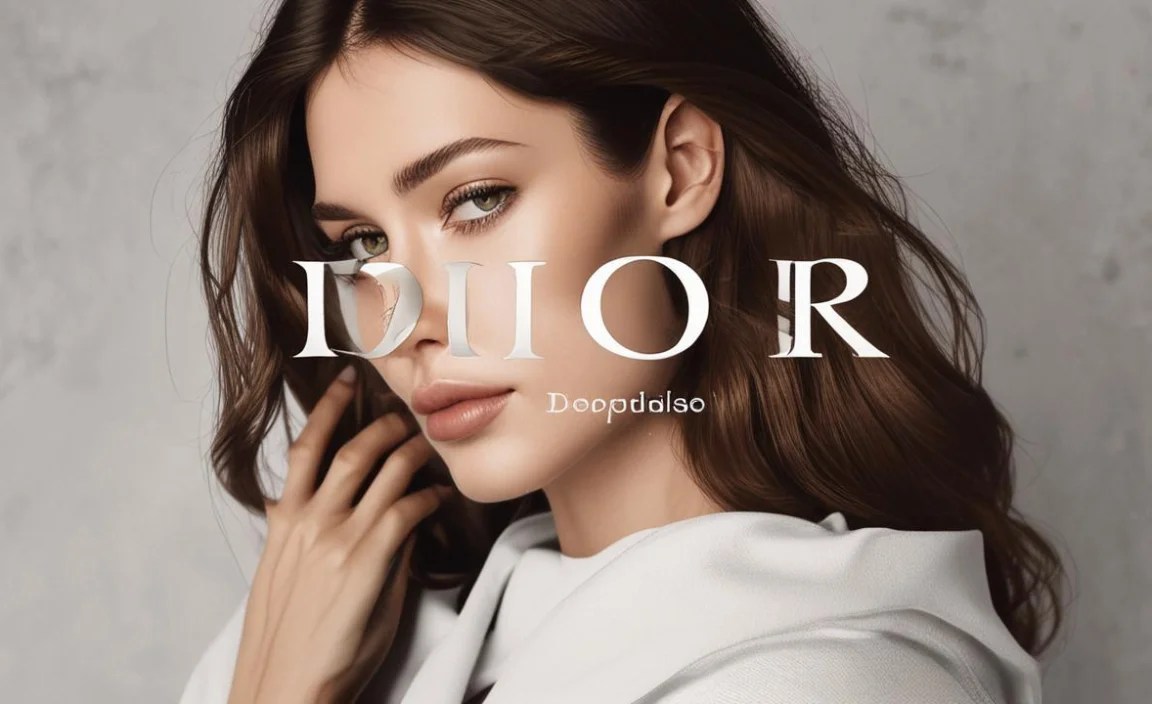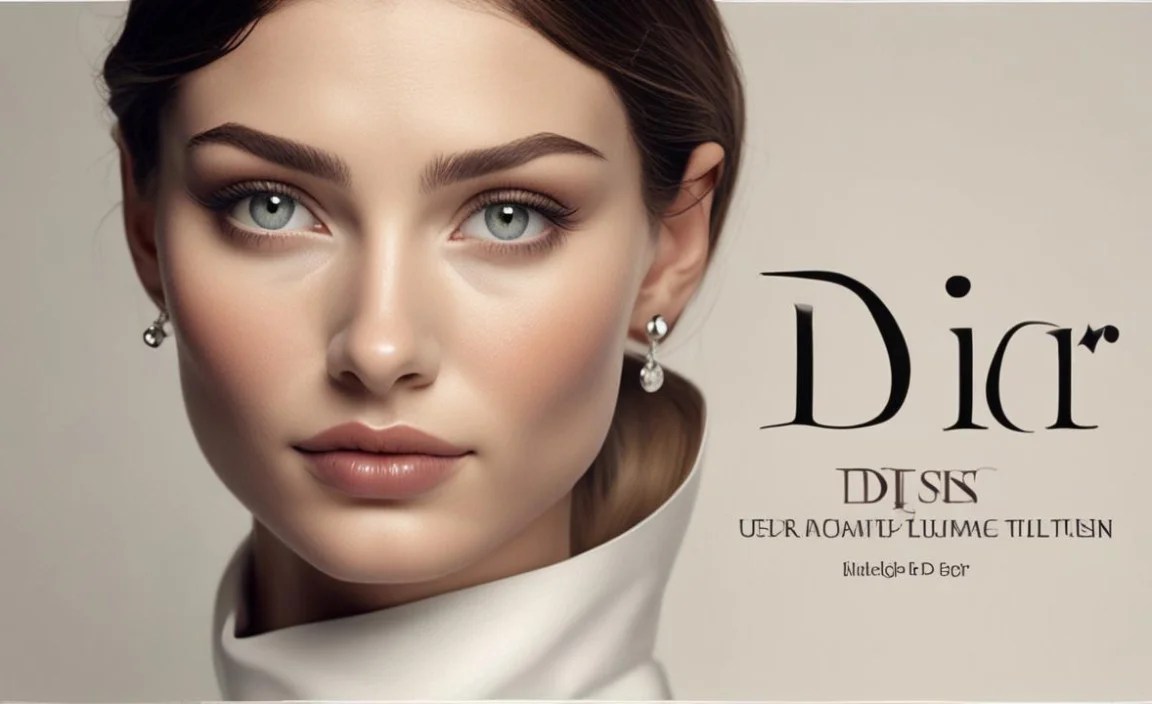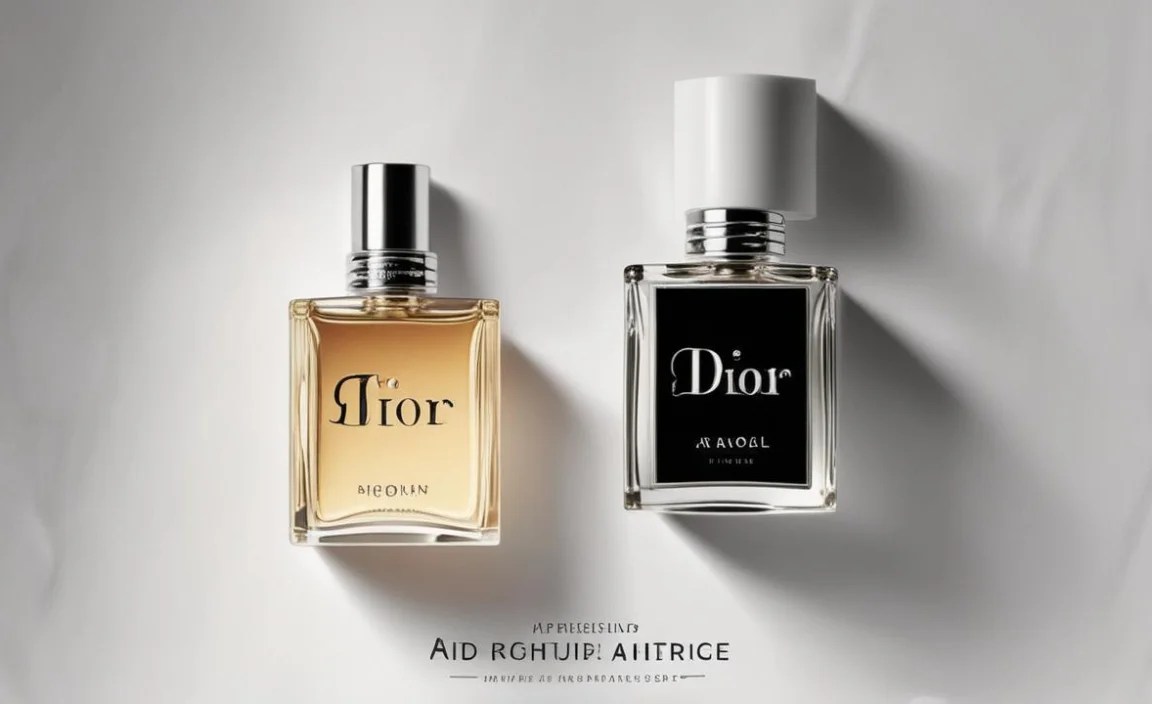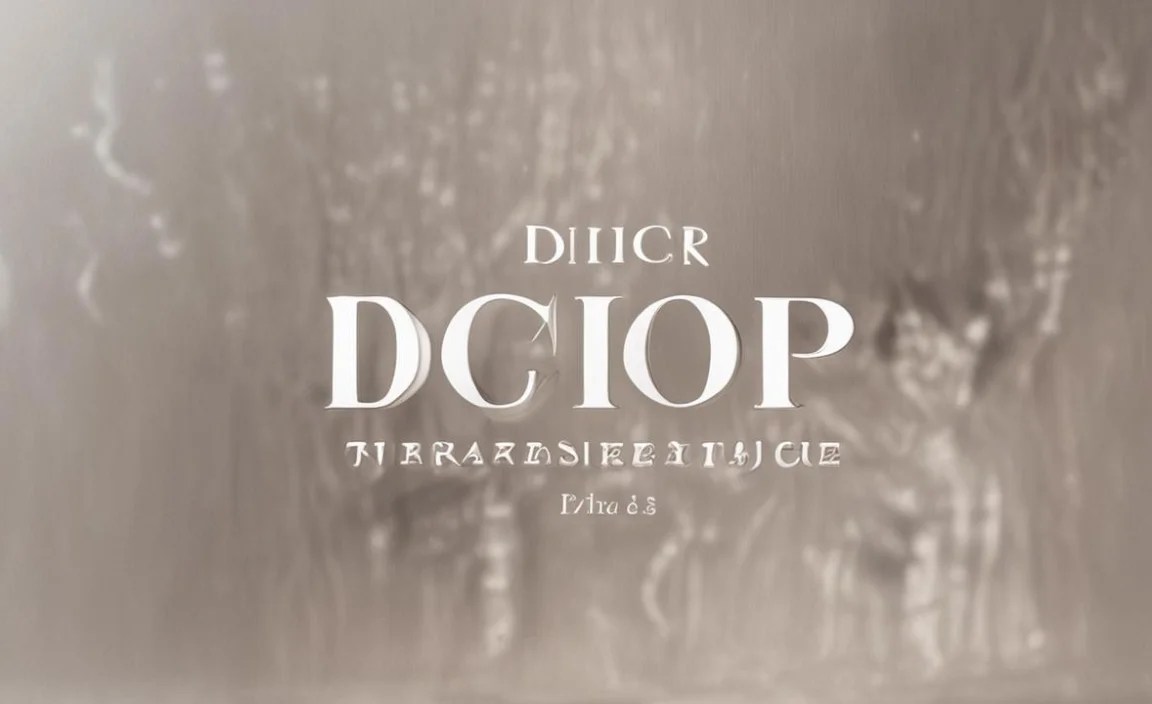
The Dior Font is a sophisticated serif typeface primarily associated with the Christian Dior brand, created by Georges Peignot and inspired by the Nicolas Cochin Font.
It was published by URW Type Foundry and continues to evoke the elegance and luxury that Christian Dior is known for. This font, used in the iconic Dior logo, has found its way into countless designs representing luxury items, fashion, and accessories. Let’s explore the Dior Font in detail and understand its significance in the fashion world.
Dior Font Information
- Name: Dior Font
- Style: Serif
- Designer: Georges Peignot
- Type: Serif Typeface
Dior Font Family Includes:
- Dior OPTINaval
Where Dior Font Is In Use
- Logo Design: Primarily seen in the Christian Dior logo, the Miss Dior logo, and other Dior-branded products.
- Luxury Branding: Used in branding for luxury clothing, jewelry, fragrances, cosmetics, and accessories.
- Fashion Advertising: Common in fashion magazines, websites, and promotional materials for the Dior brand and similar luxury items.
- Product Design: Seen in the packaging and design of Dior perfumes and fashion accessories.
- Web Design: The Dior Font is used in high-end e-commerce websites for cosmetics, clothing, and luxury goods.
- Magazine Features: Found in fashion magazines featuring articles on Christian Dior SE, Maria Grazia Chiuri (Dior’s current creative director), and other French fashion designers.
- Roboto: A clean sans-serif font that pairs well with Dior Font for a modern yet classic look.
- Georgia: A timeless serif font that complements the Dior Font for elegant and polished designs.
The Dior Font, rooted in the classic design of Nicolas Cochin, is the epitome of sophistication and elegance, perfect for representing high-end fashion brands, luxury goods, and timeless products. Whether you’re designing logos, fashion ads, or cosmetics packaging, this serif typeface brings grace, style, and a touch of luxury. Its association with the iconic Christian Dior SE only adds to its prestige in the fashion world.
3.What Font Is Closest To The Dior Font?
Nicolas Cochin is the closest font to the Dior Font, as it directly influenced the logo design.
4.What Is The Type Of The Dior Font?
The Dior Font is a serif font, characterized by its elegant, classic feel, and is perfect for luxury branding.